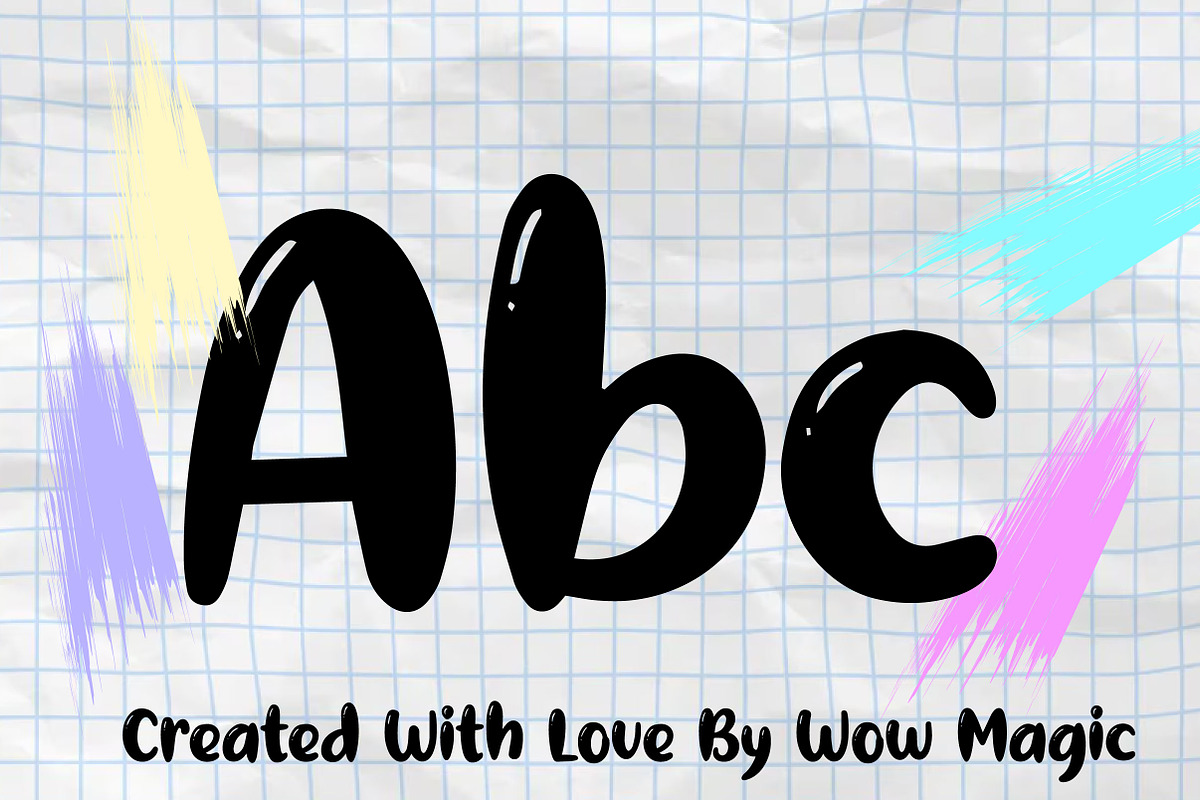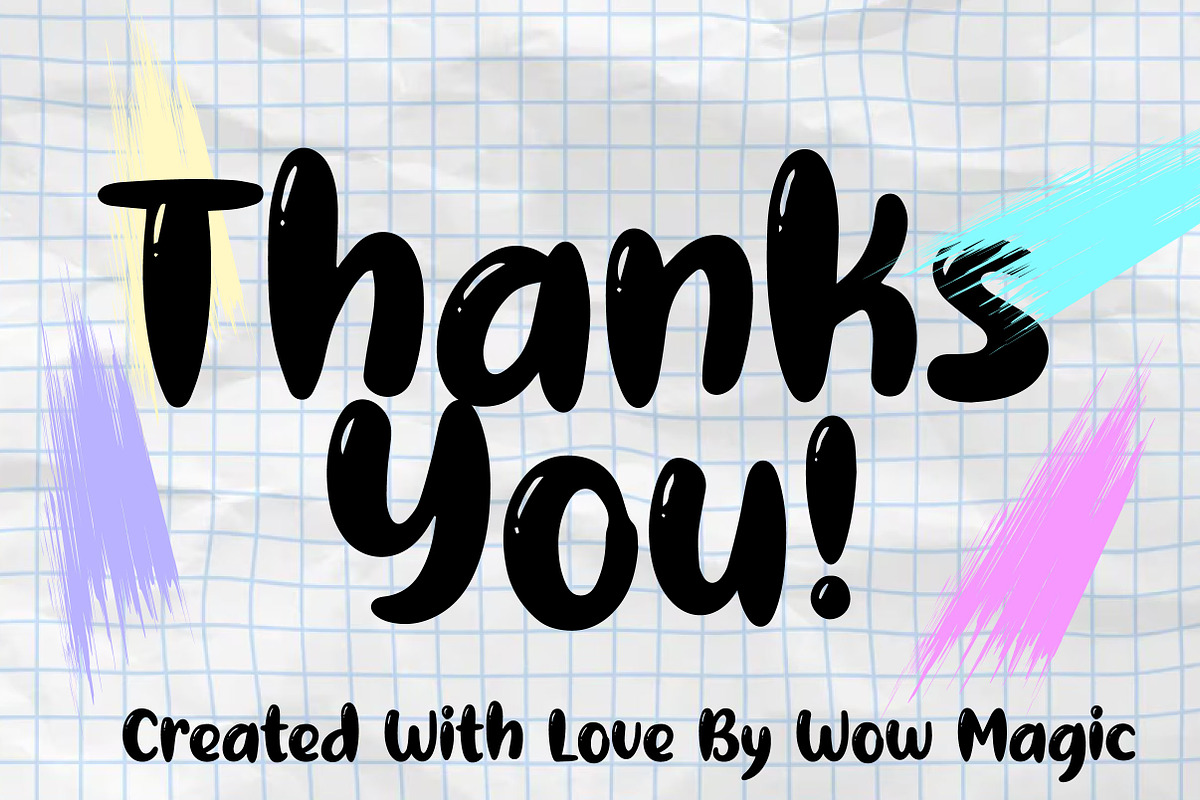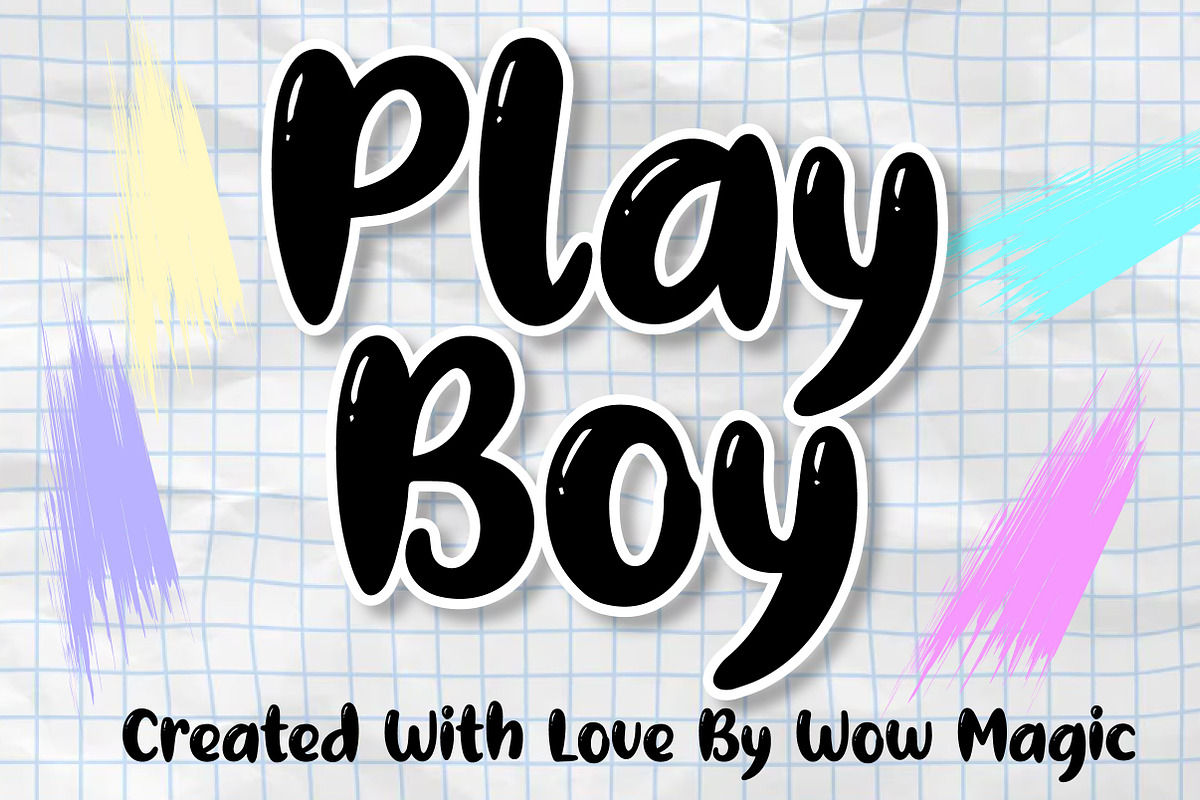
Play Boy
Play Boy – Cute Bubble Display Font
Short Description
Play Boy is a cute, bold, and playful bubble display font with a glossy fun style, perfect for kids designs, branding, packaging, posters, and cheerful creative projects.
Full Description
Play Boy is a fun and energetic bubble display font designed to bring joy, charm, and personality into your designs. With its chunky rounded shapes, bold handwritten feel, and glossy decorative highlights, this font creates a lively and eye-catching look that instantly stands out.
Its playful and expressive style makes Play Boy perfect for projects that need a cheerful and youthful touch. Whether you are creating kids branding, toy packaging, posters, birthday invitations, social media graphics, stickers, or fun logo concepts, this font helps your typography feel more exciting, lovable, and memorable.
The soft bubble-like letterforms add warmth and friendliness, while the decorative shine details give the font an extra playful character. Suitable for both print and digital use, Play Boy is a great choice for designers who want a font that feels bold, cute, and full of fun energy.